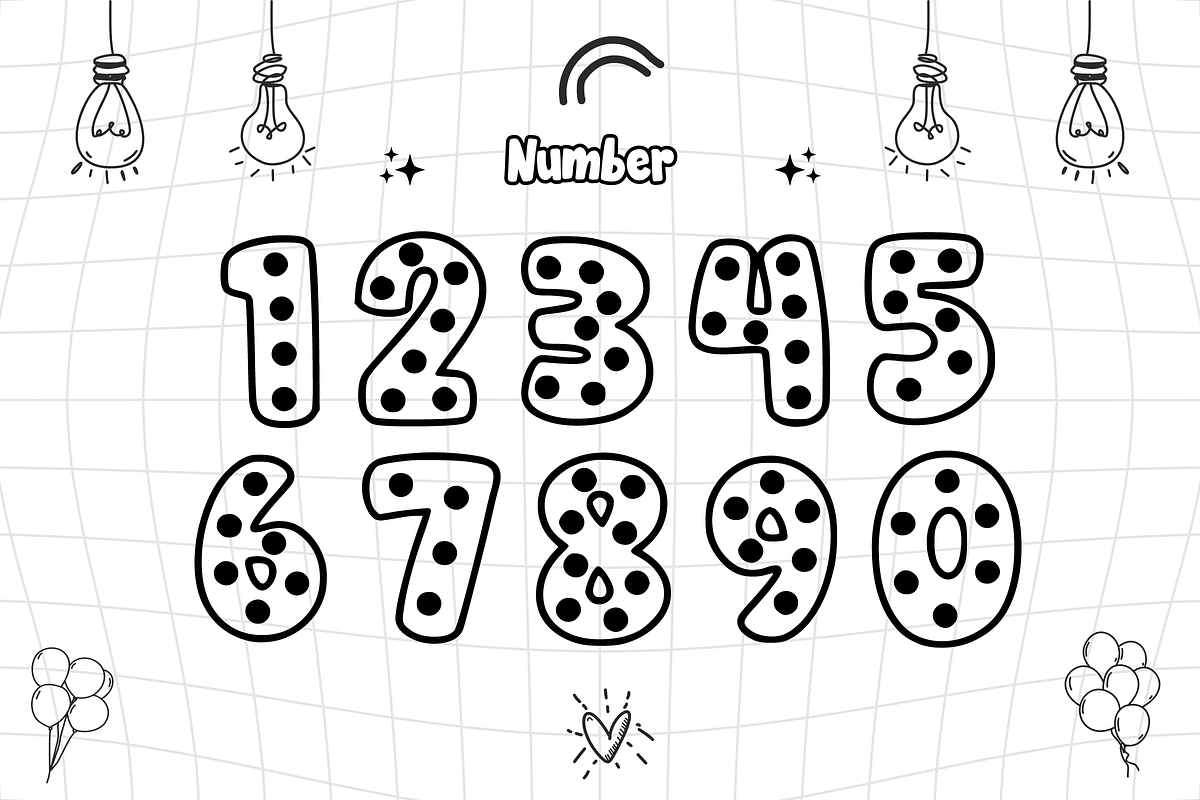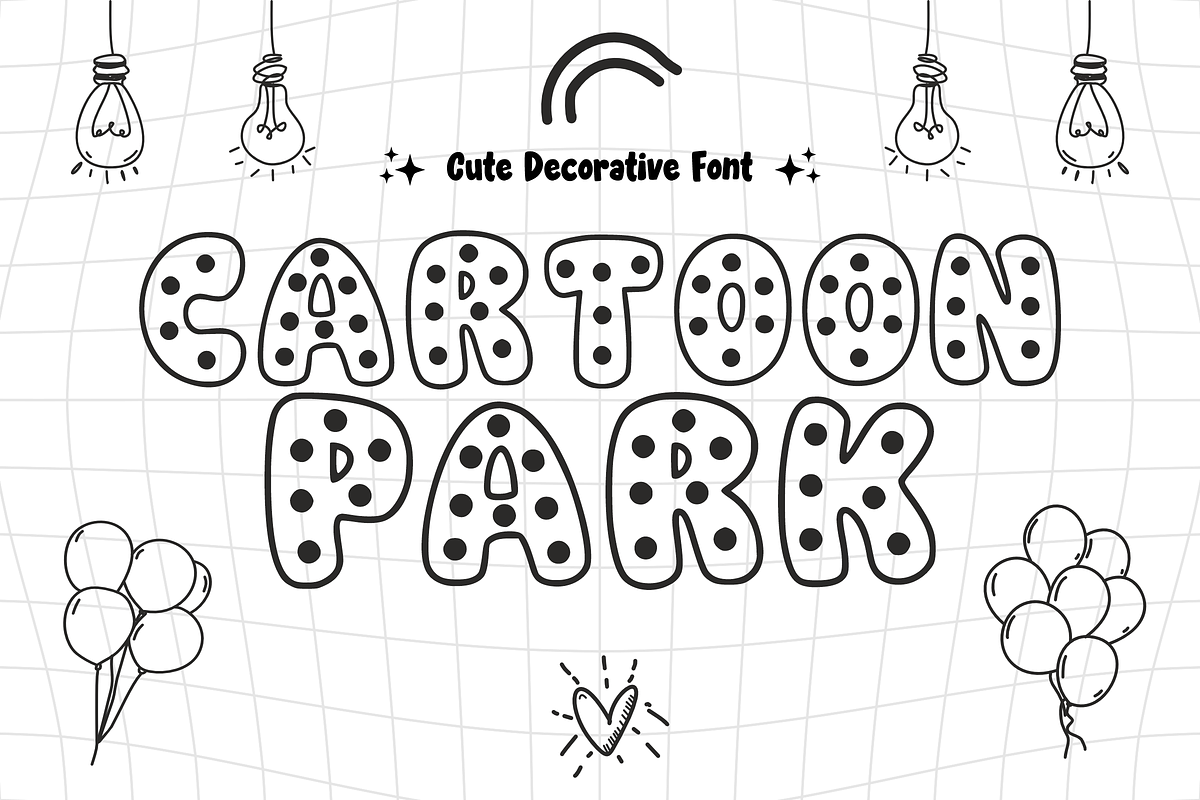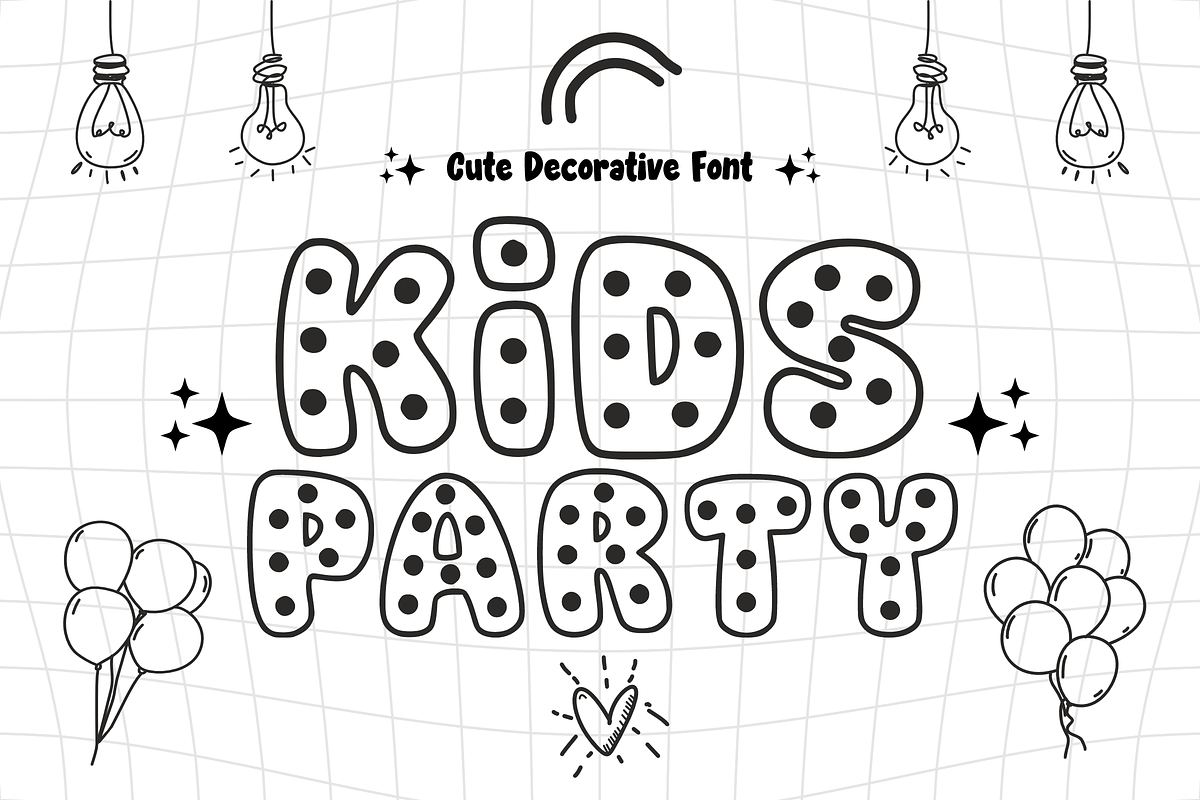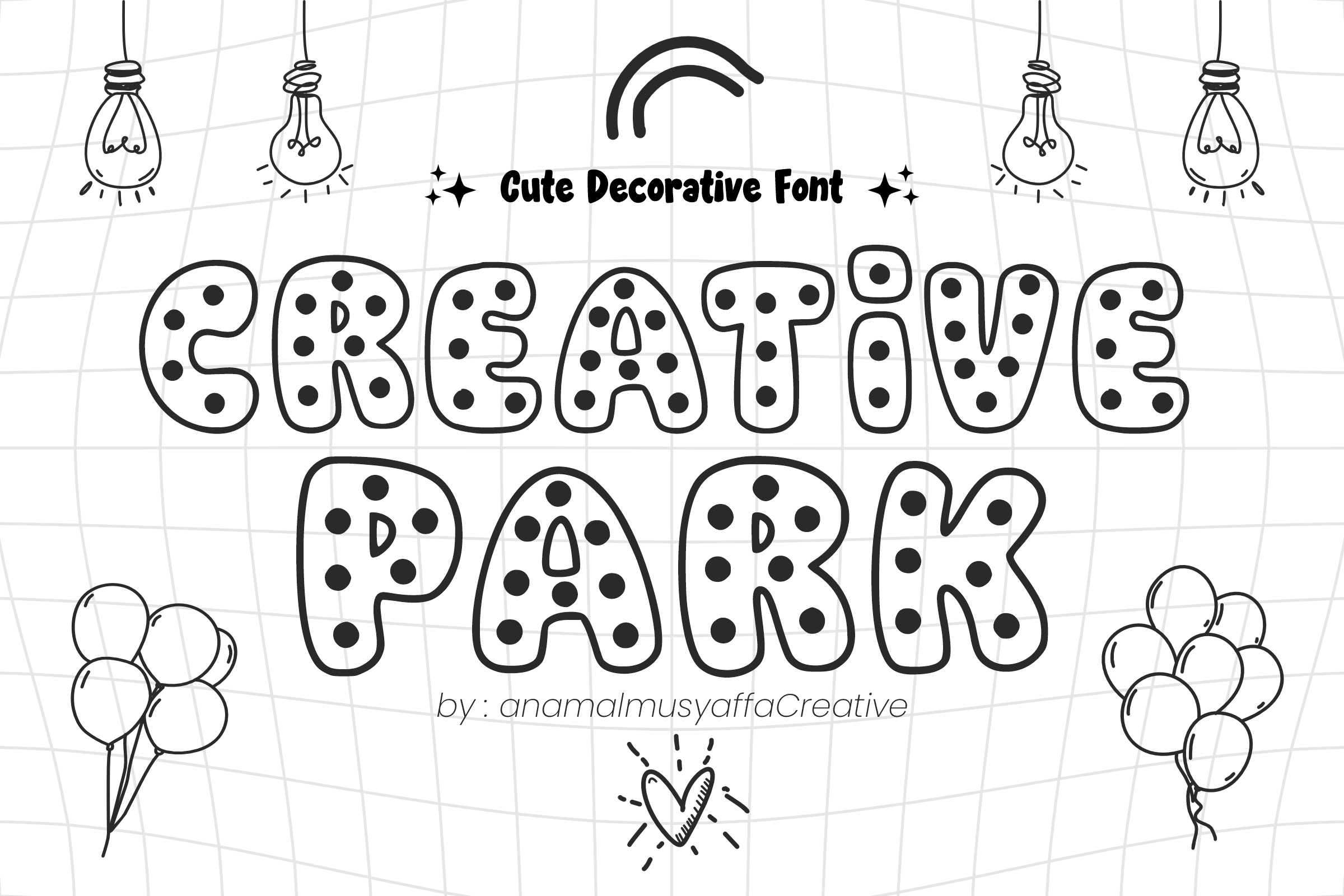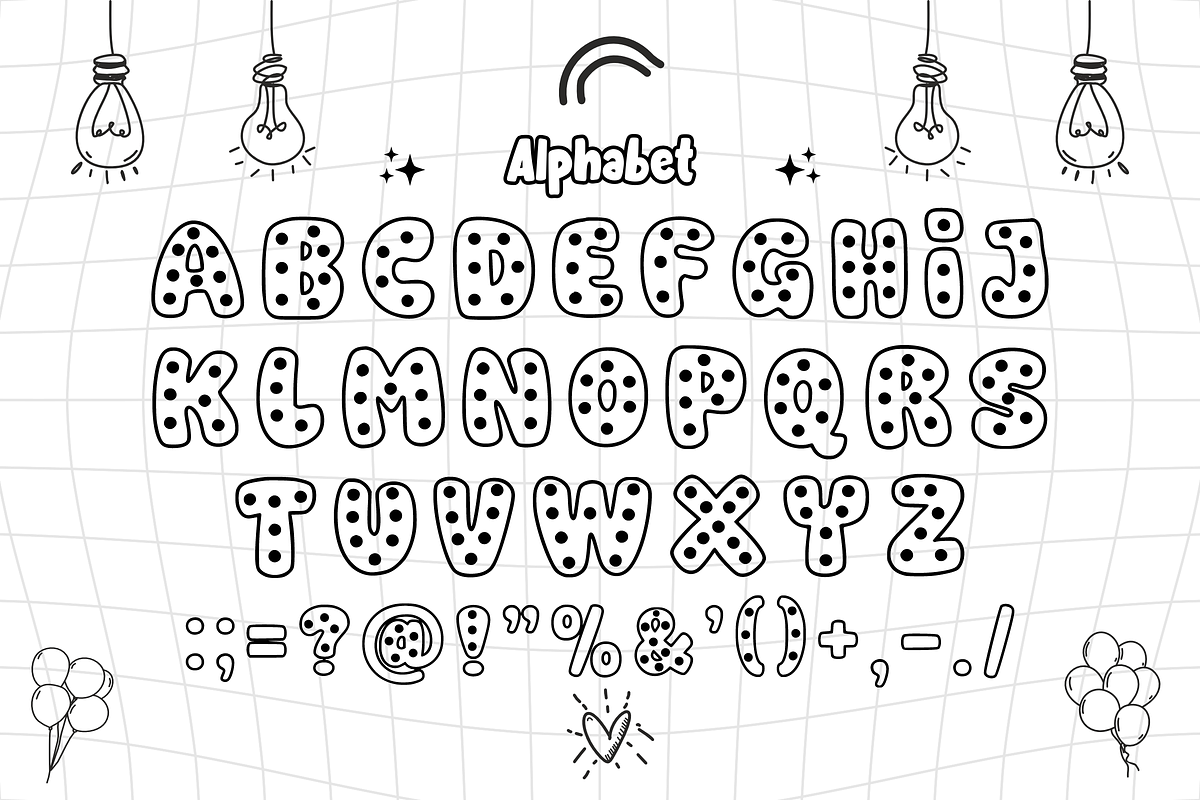
Creative Park - Decorative Font
🎢 Creative Park - Fun & Dotted Display Font 🎈 Step into a world of fun with Creative Park! This adorable display font is packed with cheerful energy, featuring chunky, rounded uppercase letters filled with a playful dot pattern. Finished with a clean "sticker-style" outline, it's the perfect way to add a crafty and cute touch to any design.
Whether you're creating for a birthday party, a classroom, or a fun DIY project, Creative Park brings a sense of joy and creativity to every word!
🌟 Key Features: 🔴 Dotted Uppercase: Bold, rounded letters with a whimsical polka-dot fill.
🔢 Numbers 0-9: Playful, matching dotted numerals for ages, dates, and counting.
✨ Simple Symbols: Essential punctuation to complete your fun headlines.
✂️ Sticker Ready: Smooth, thick outlines perfect for vinyl cutting machines like Cricut.
🎨 Perfect For: 🧸 Kids & Nursery: Wall art, name signs, baby shower invitations, and clothing.
🏫 School & Education: Classroom banners, bulletin boards, and teacher worksheets.
🎂 Celebrations: Birthday party invites, cake toppers, and favor tags.
🎨 Crafts & DIY: Scrapbooking, custom stickers, and personalized gifts.
📱 Social Media: Cute YouTube thumbnails and playful Instagram quotes.